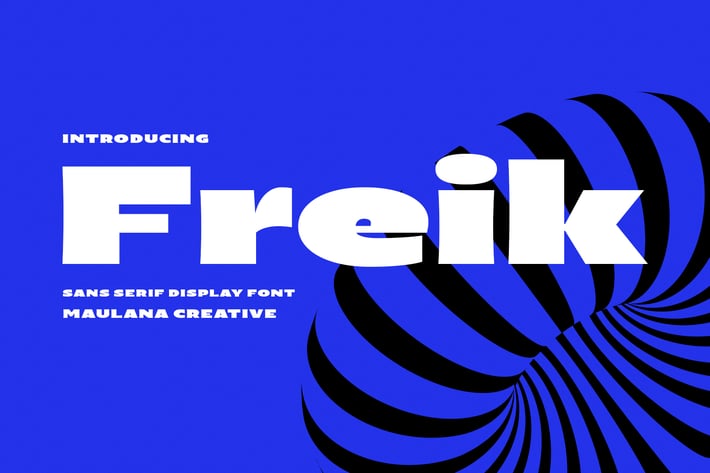
Freik Sans Display Font
Freik is a wide strong headlines display sans font. With bold sharp edge stroke, fun character with a bit of ligatures and alternates. To give you an extra creative work. Freik font support multilingual more than 100+ language. This font is good for logo design, Social media, Movie Titles, Books Titles, a short text even a long text letter and good for your secondary text font with sans or serif. Make a stunning work with Freik font.